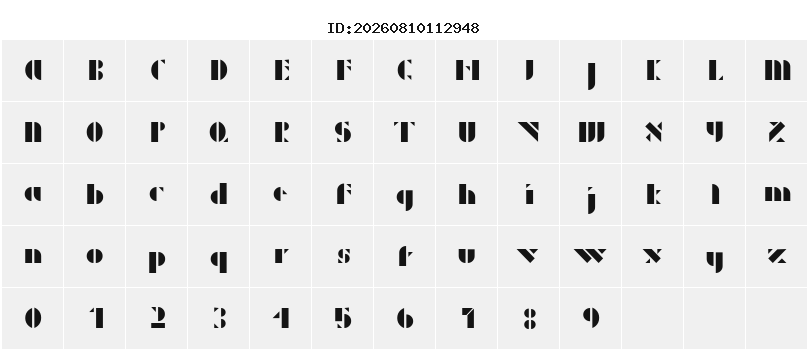
• Font Name: P22 Albers
• Font Style: Three
• Full Font Name: P22 Albers Three
About P22 Albers.ttf
P22 Albers.ttf is a modern, elegant sans-serif font designed for ultimate readability and visual harmony. Perfect for branding, headlines, web design, and print materials.